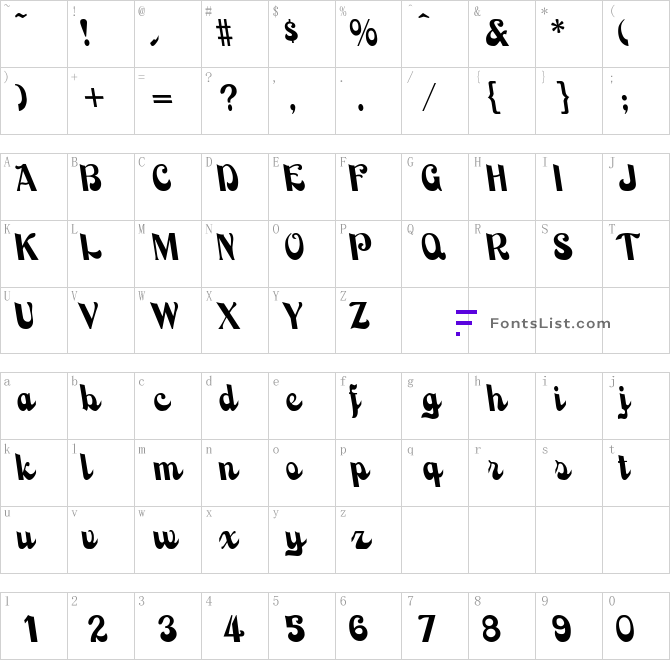
- Font Name:BackhandScript
BackhandScript.ttf is a very beautiful artistic font, BackhandScript.ttf is widely used in the design and printing of various books and pictures,BackhandScript.ttf has a strong visual impact,BackhandScript.ttf is a commonly used font in newspapers, magazines and books, and is used in posters, e-commerce Poster design, store design, logo design, font design and other fields.BackhandScript.